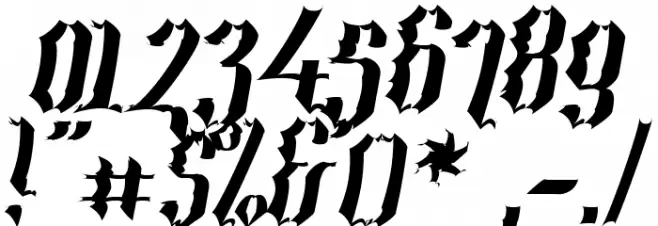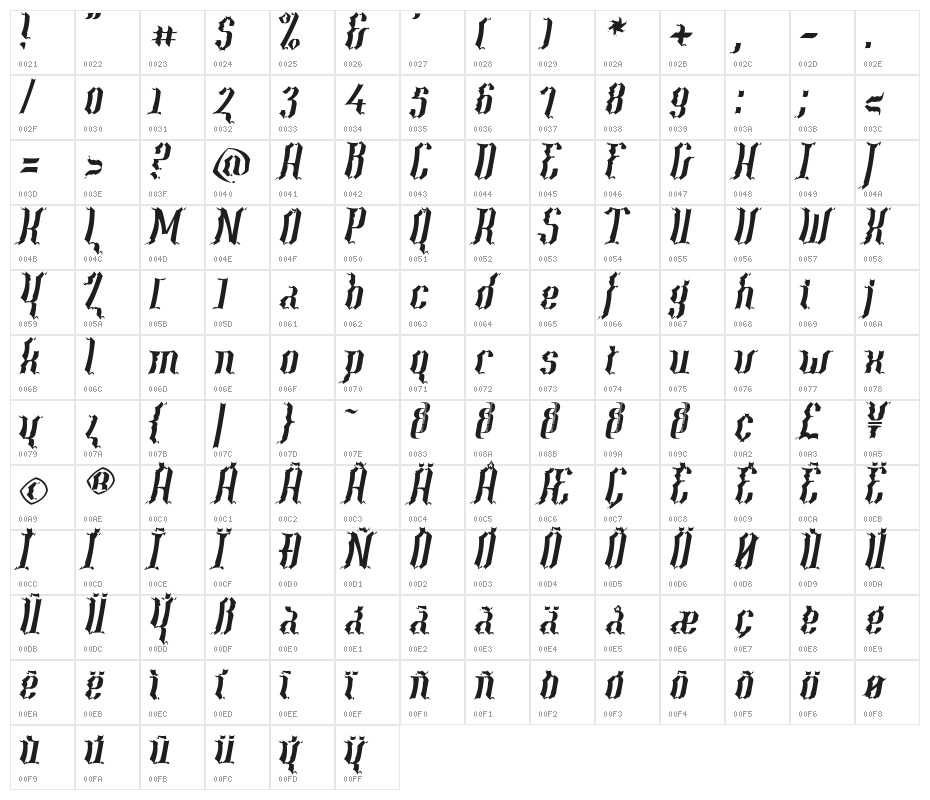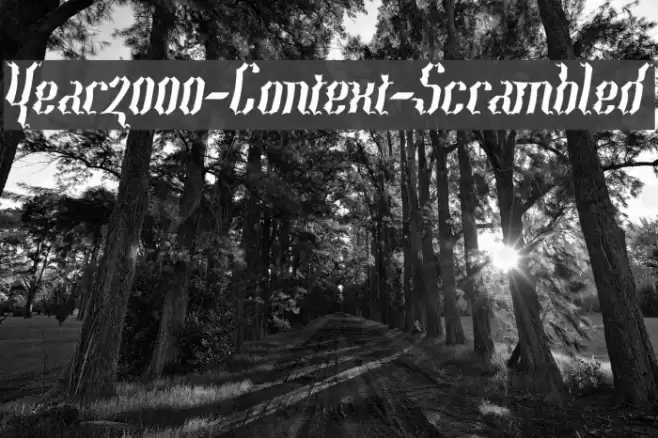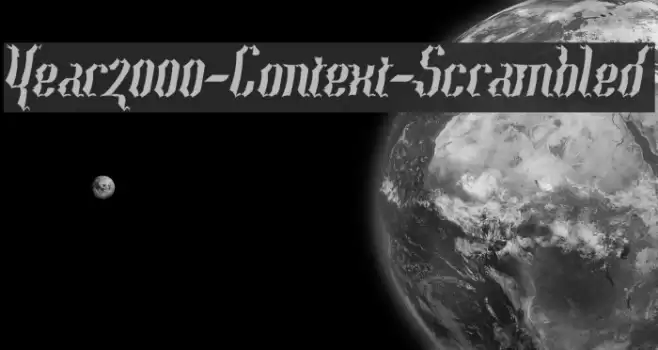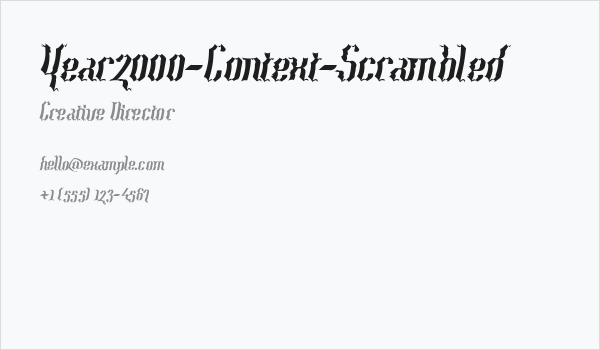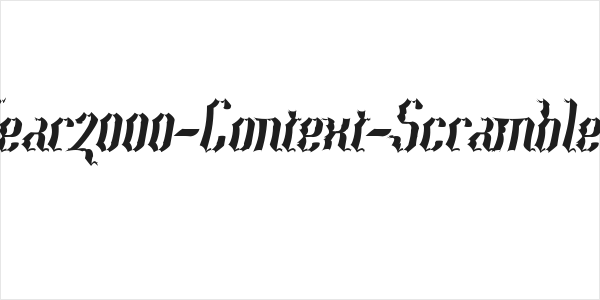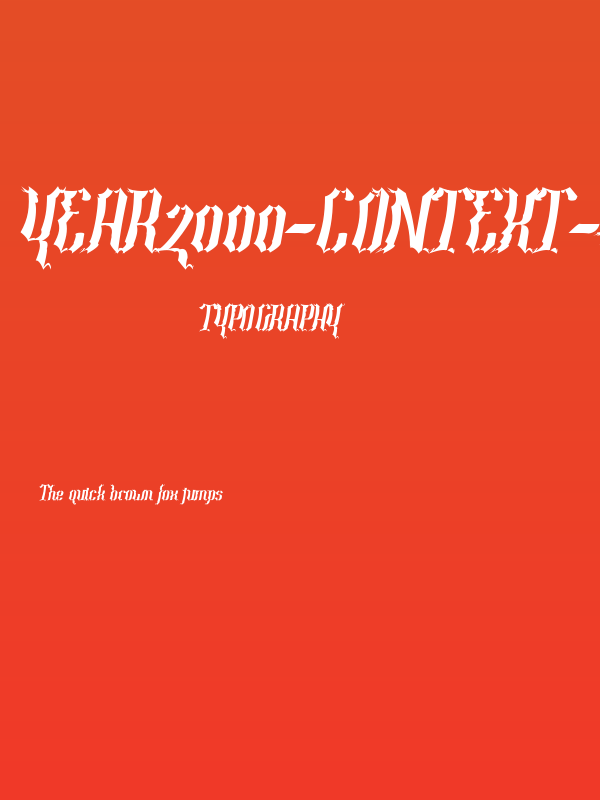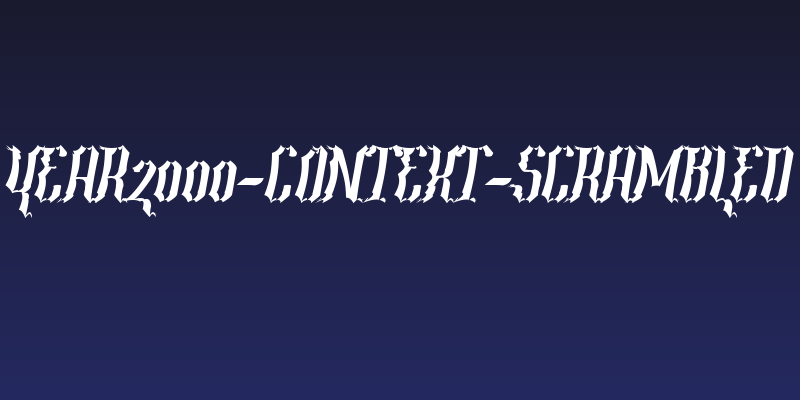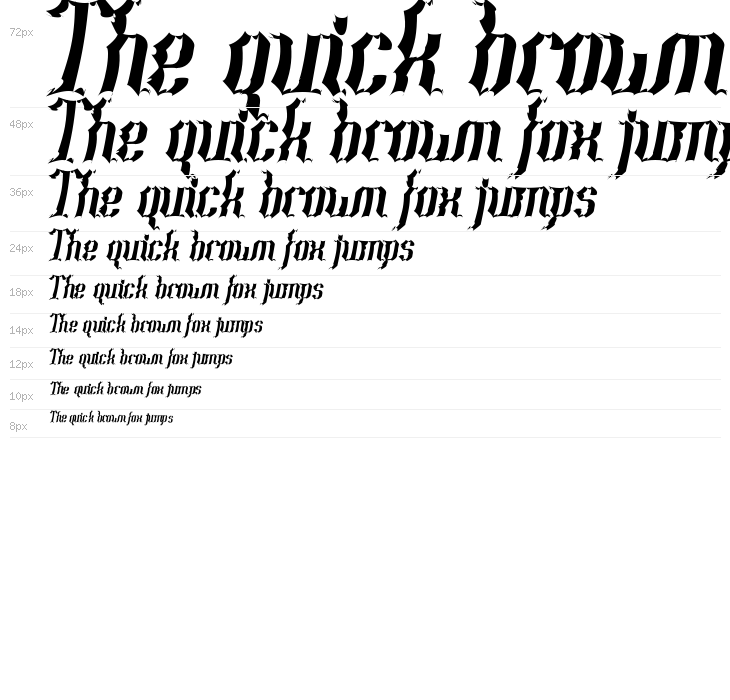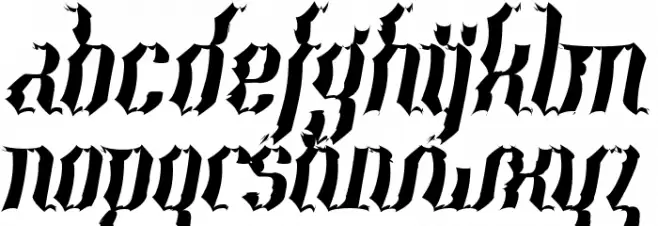
Year2000-Context-Scrambled Font
Year2000-Context-Scrambled Description
This font features a bold, angular design with sharp edges and a distinct Gothic influence. The characters are heavily stylized, with exaggerated serifs and a dramatic flair that gives it a medieval, almost calligraphic appearance. The uppercase letters are particularly striking, with a strong vertical emphasis and intricate detailing. Lowercase letters maintain the same stylistic elements, ensuring consistency across the typeface. Numbers and special characters follow suit, offering a cohesive look that is both unique and eye-catching. The overall aesthetic is dark and intense, making it suitable for projects that require a bold statement.
| Proposed Projects | Ideal for use in fantasy-themed designs, video game titles, movie posters, or any project requiring a medieval or dramatic aesthetic. |